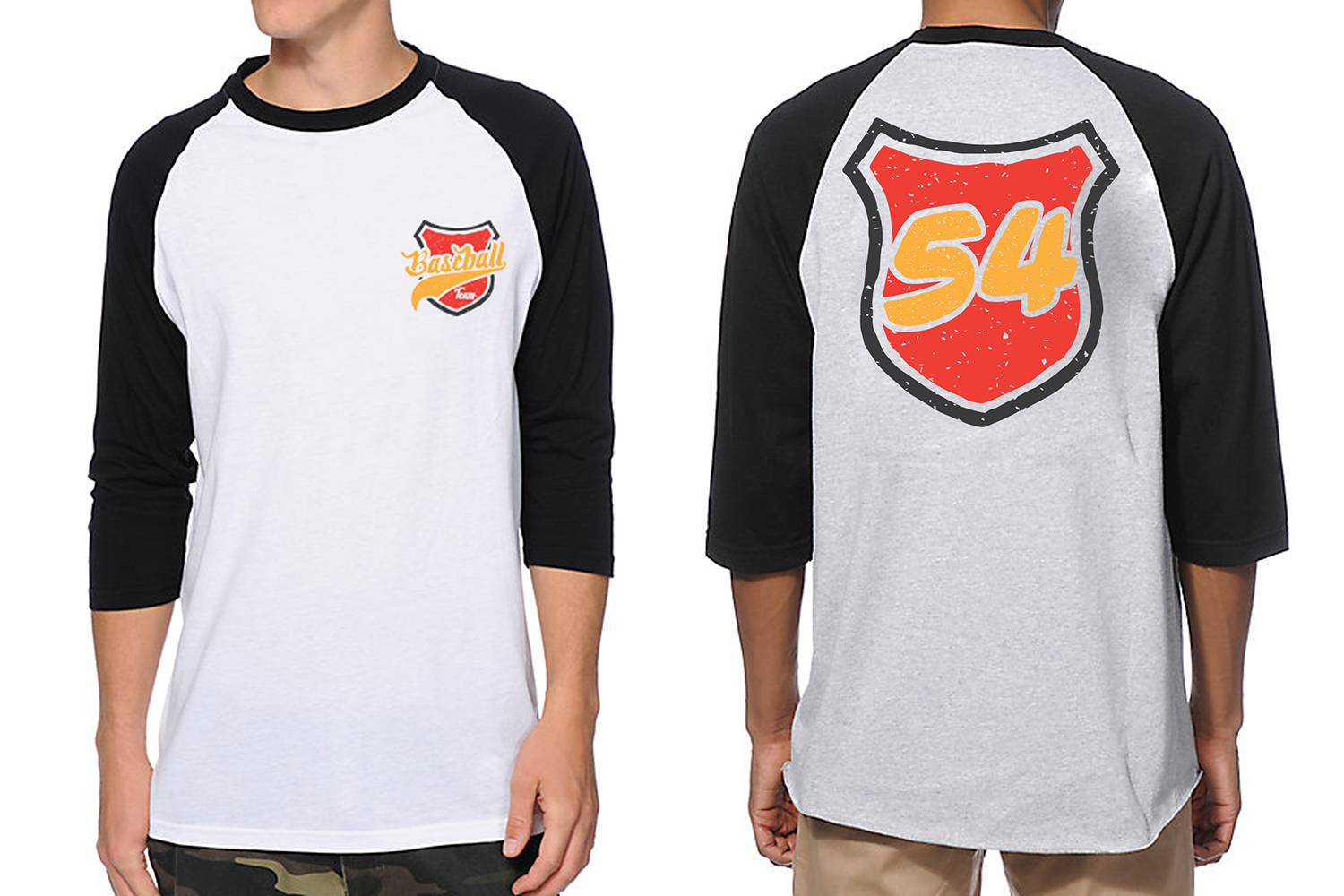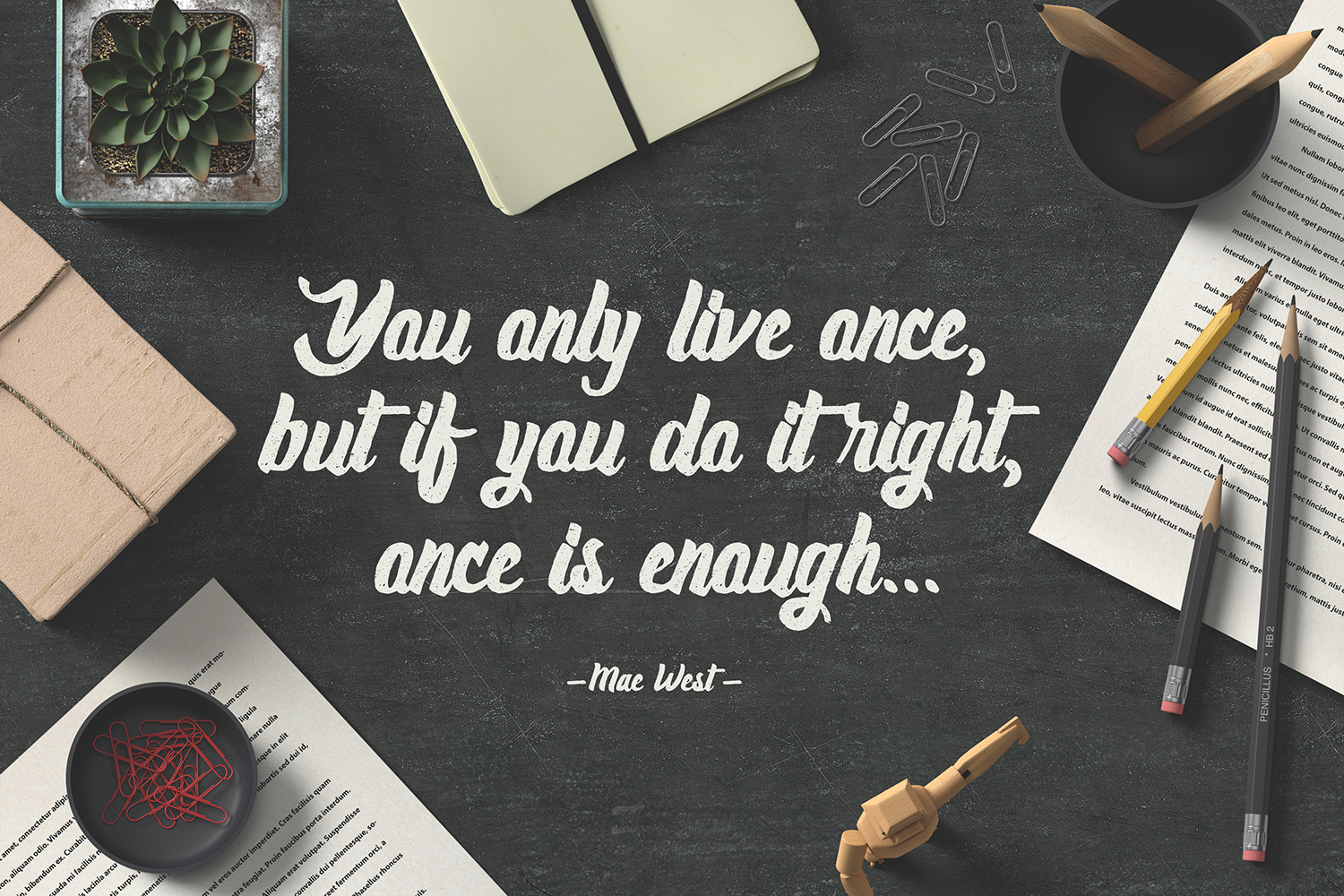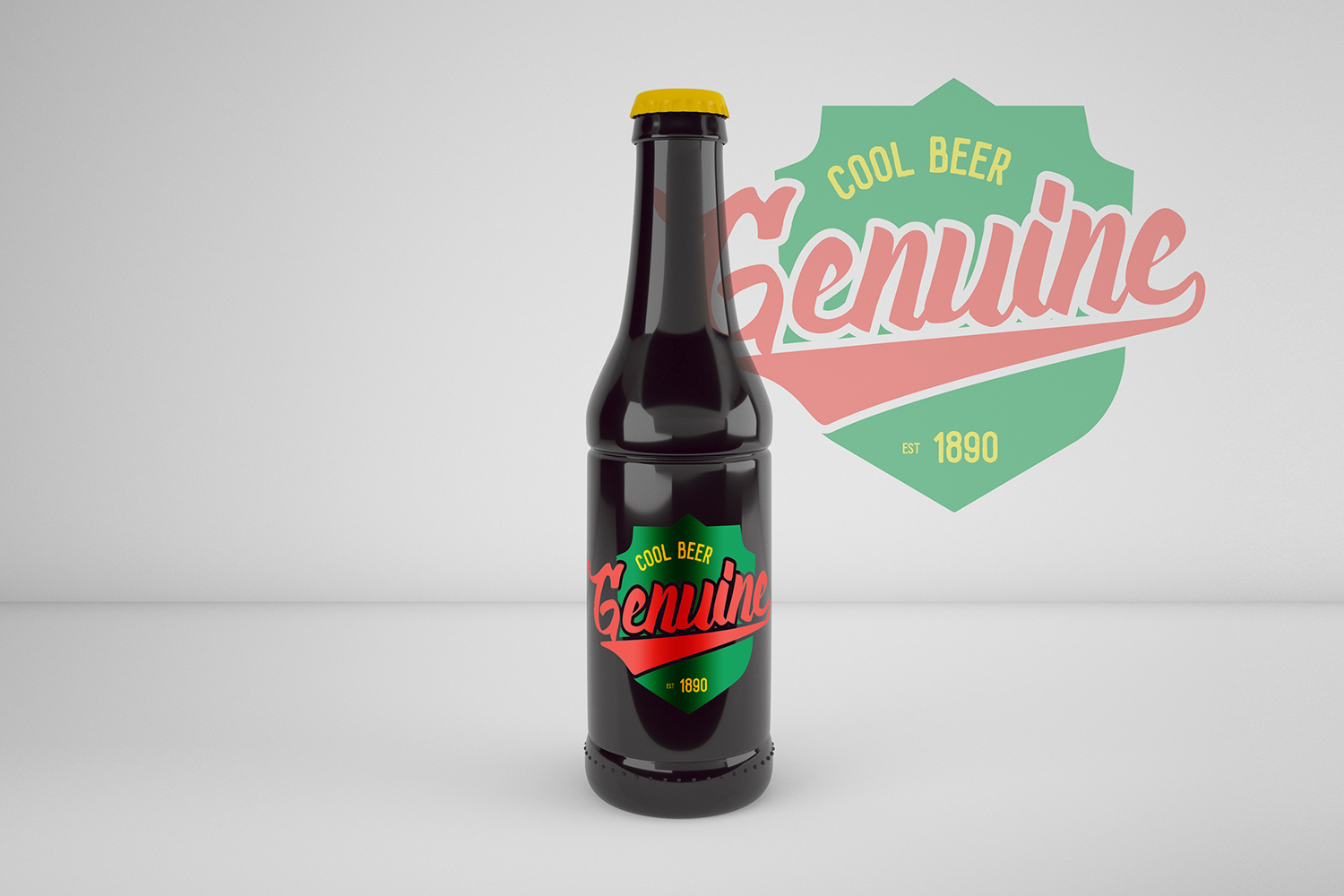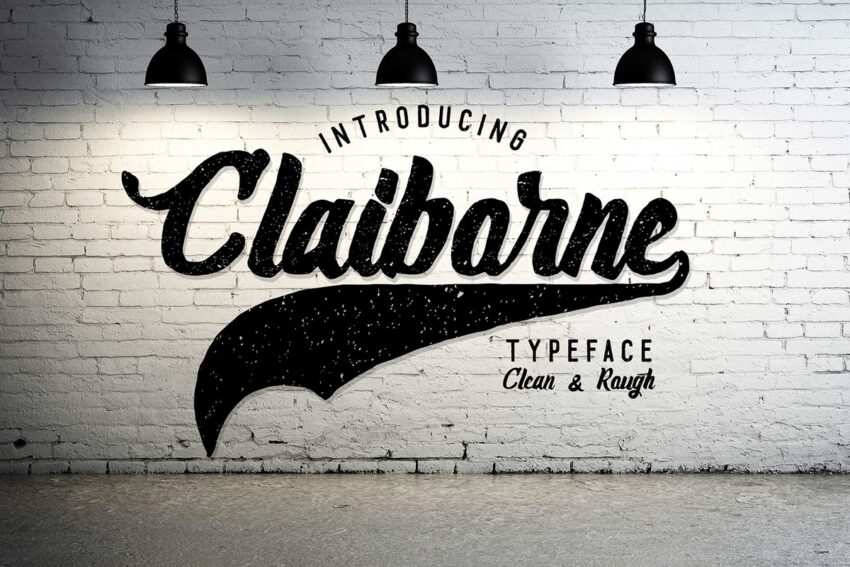
Introduction to Claiborne Font
Claiborne is a stunning, solid script that comes in 2 variations: Claiborne & Claiborne Rough.
Key Features of Claiborne Font